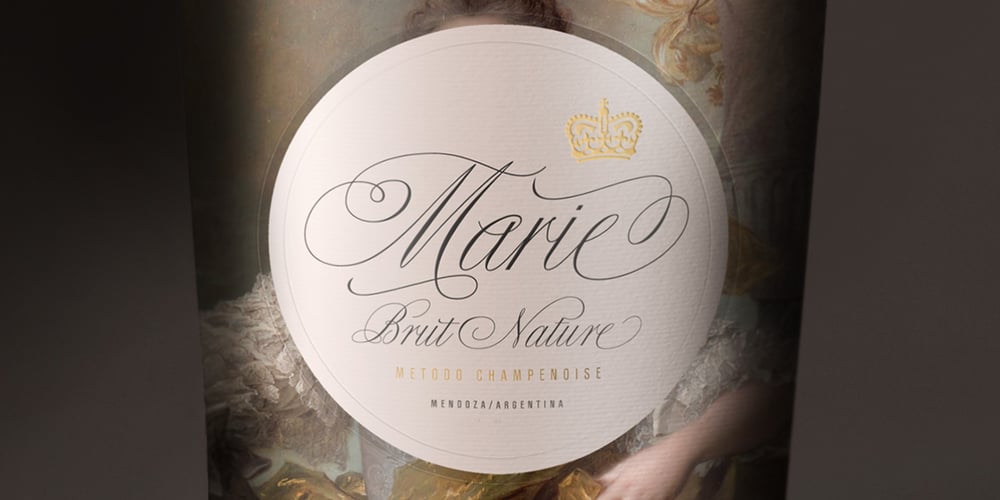
Bellissima Script Pro Font Family was designed by Alejandro Paul and published by Sudtipos. Bellissima Script Pro contains 2 styles and family package options. While in the same vein and spirit as Burgues and Compendium, Bellissima began from an entirely different thread from those fonts. It started with Alex Trochut generously showing me a gorgeous lettering book from his grandfather’s library: Bellezas de la Caligrafía, by Ramón Stirling, 1844. Stirling was one of the Latin calligraphy pioneers who introduced a refined version of English calligraphy in Spain and made it popular in the nineteenth century. Some scans from that book served as initial basis for the caps in my Poem Script. But it was always in the back of my mind that I should do a copperplate, and the Stirling model was the perfect source. My intention was to veer away from Stirling’s exuberant ornamentation, and work within simplified forms of his ideas. As it usually is with most of my projects, Bellissima became its own bird and shaped its own flying patterns. Suddenly there were many ligatures, multiple endings and swashed connections, hundreds of alternates for both uppercase and lowercase. Bellissima has an effusive energy that appeals much beyond its sourcing. It’s intended for these modern times of appreciation for old crafty things like stationery and letterpress, where its origins help it shine brightly. Bellissima Script Pro is a complete font with almost 2000 characters full of alternates, swashes, ligatures & ornaments covering a wide palette of latin languages and Bellissima Script Redux is a random sample of glyphs totally usable with a reduced price.